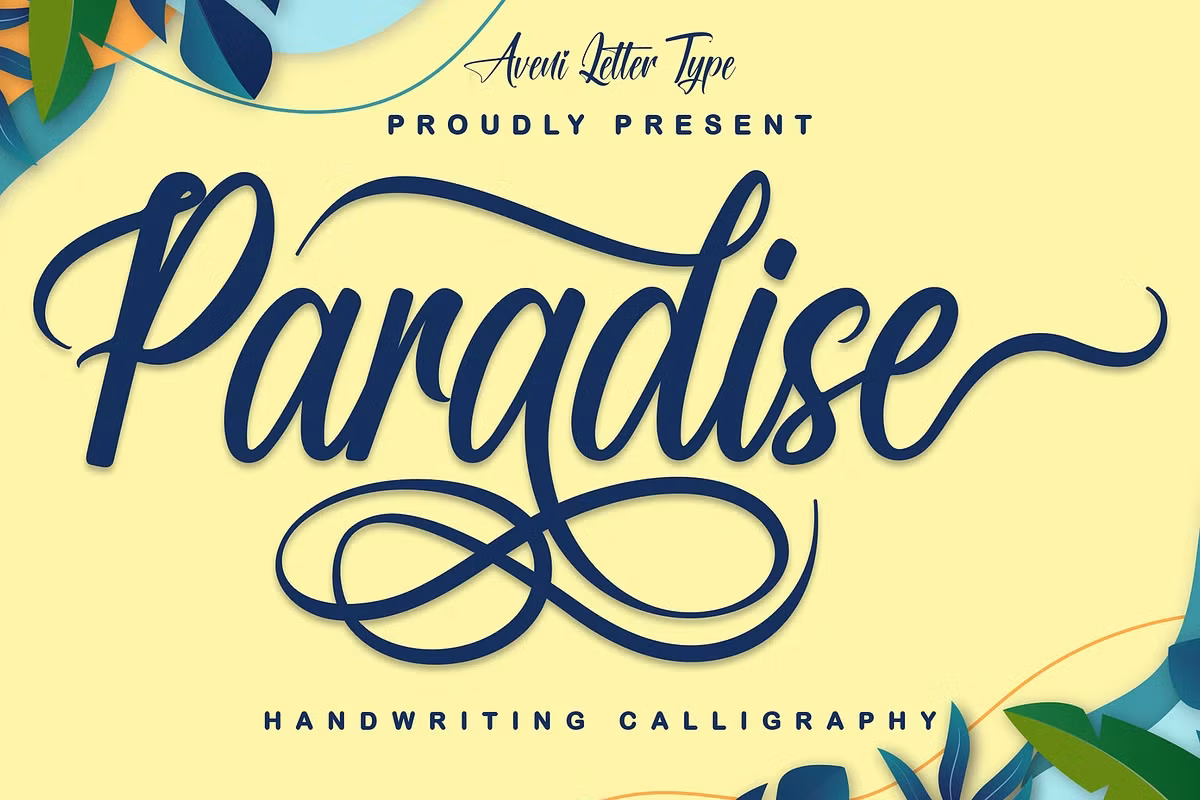
Paradise | Handwriting Calligraphy Font Free Download
Paradise | Handwriting Calligraphy Font Free Download is an elegant and flowing script typeface that combines the beauty of calligraphy with the organic, personal feel of handwritten letters. With its graceful curves, sophisticated strokes, and natural flow, this font is perfect for invitations, wedding designs, branding, logos, greeting cards, and any project that needs a touch of elegance and charm.
The Paradise font is ideal for high-end or creative projects that require a refined yet approachable aesthetic. Whether you're working on a luxury brand, a personal event, or a stylish logo, Paradise brings a sense of beauty and refinement to your typography.
Add a touch of elegance and personality to your designs with the delicate beauty of Paradise!